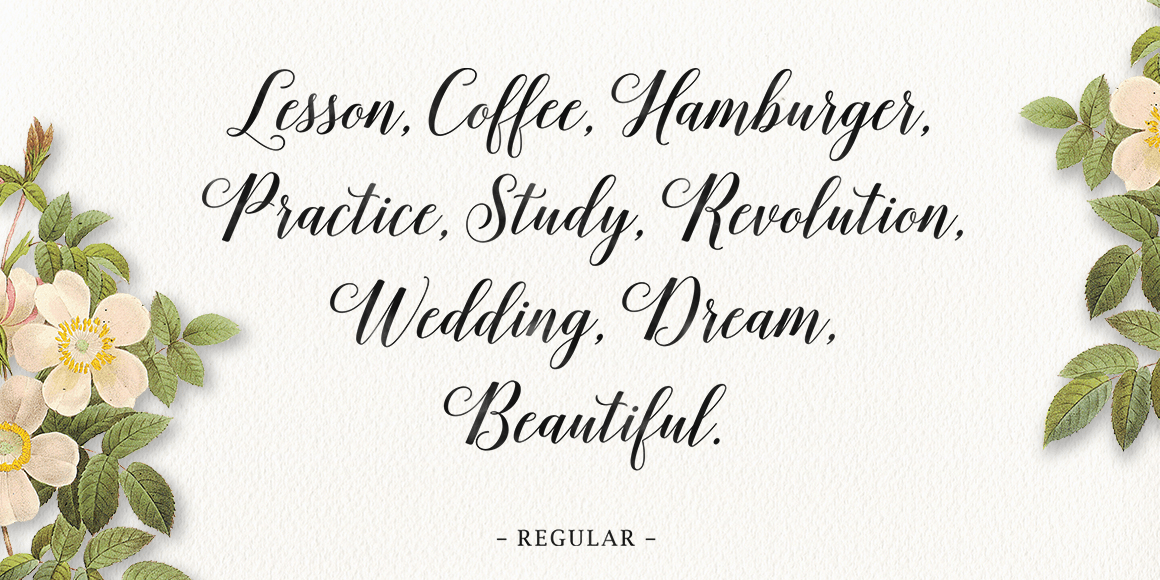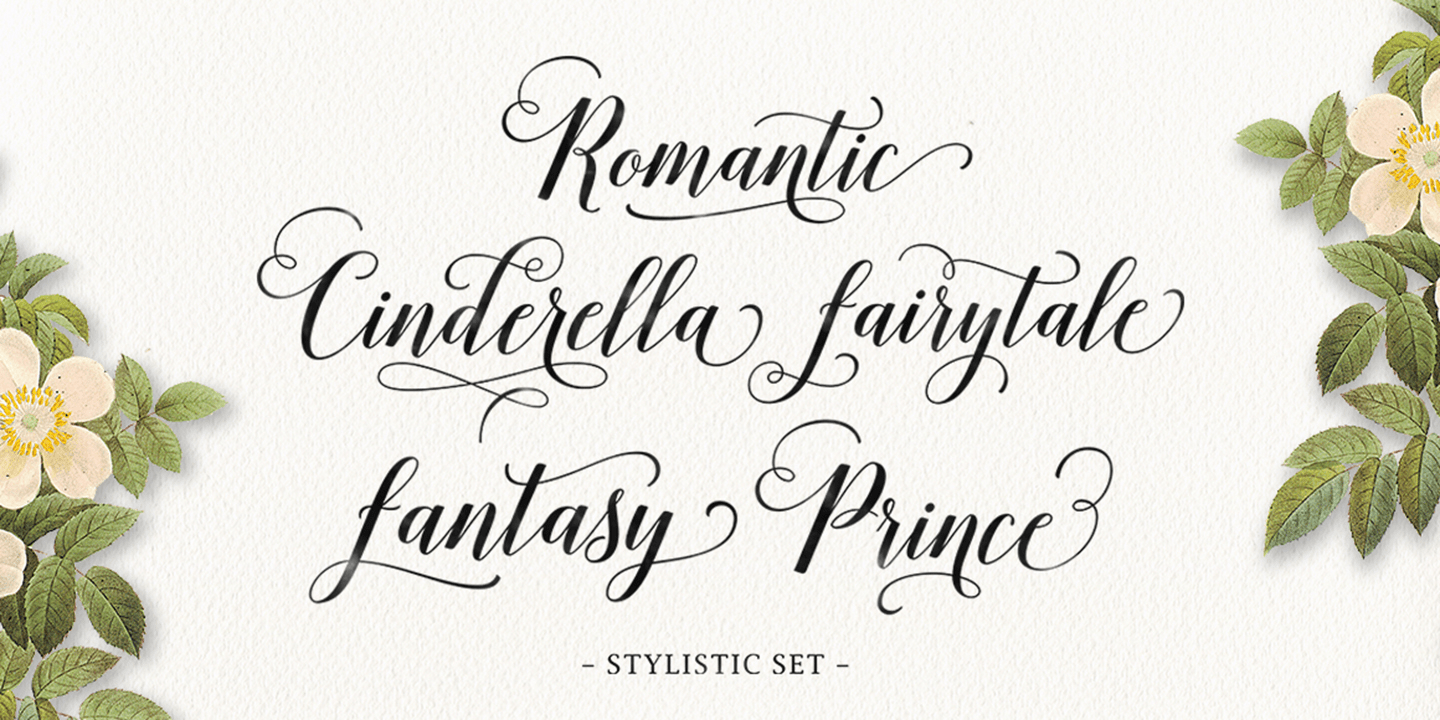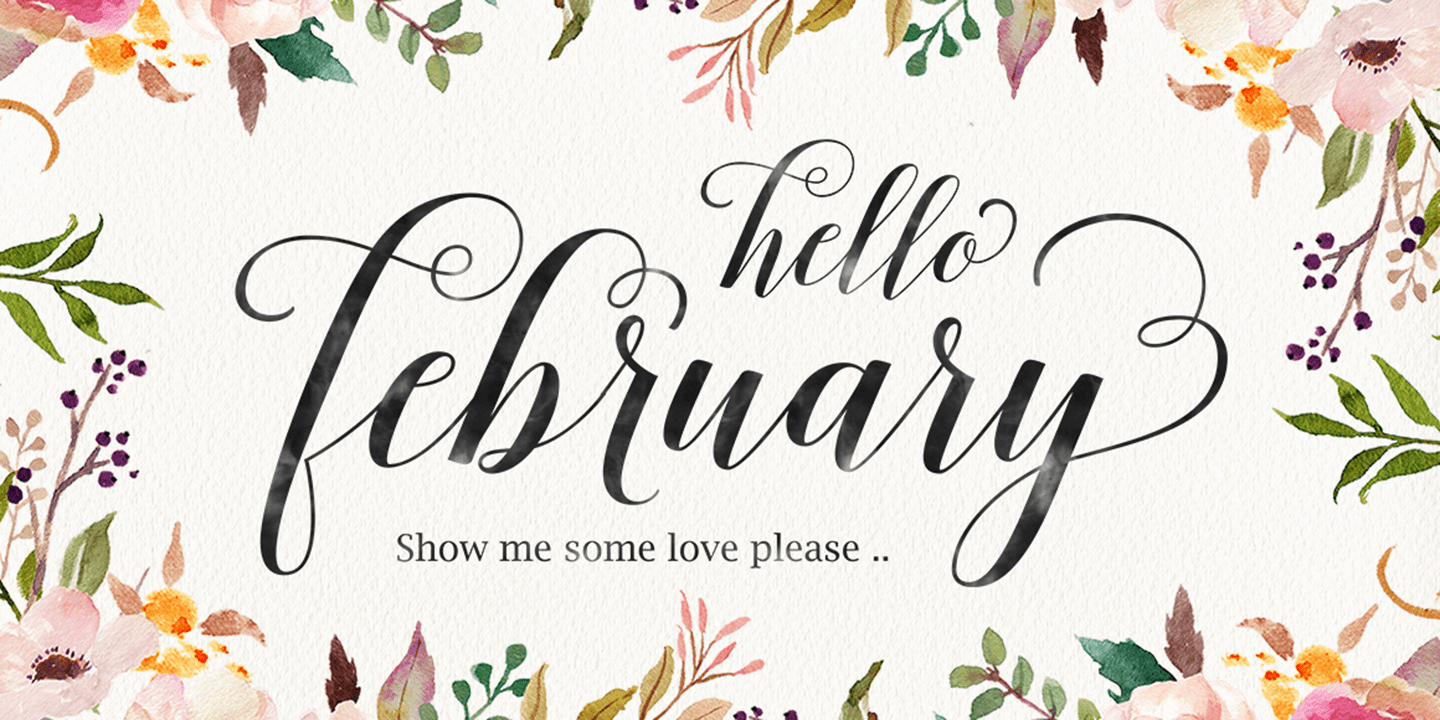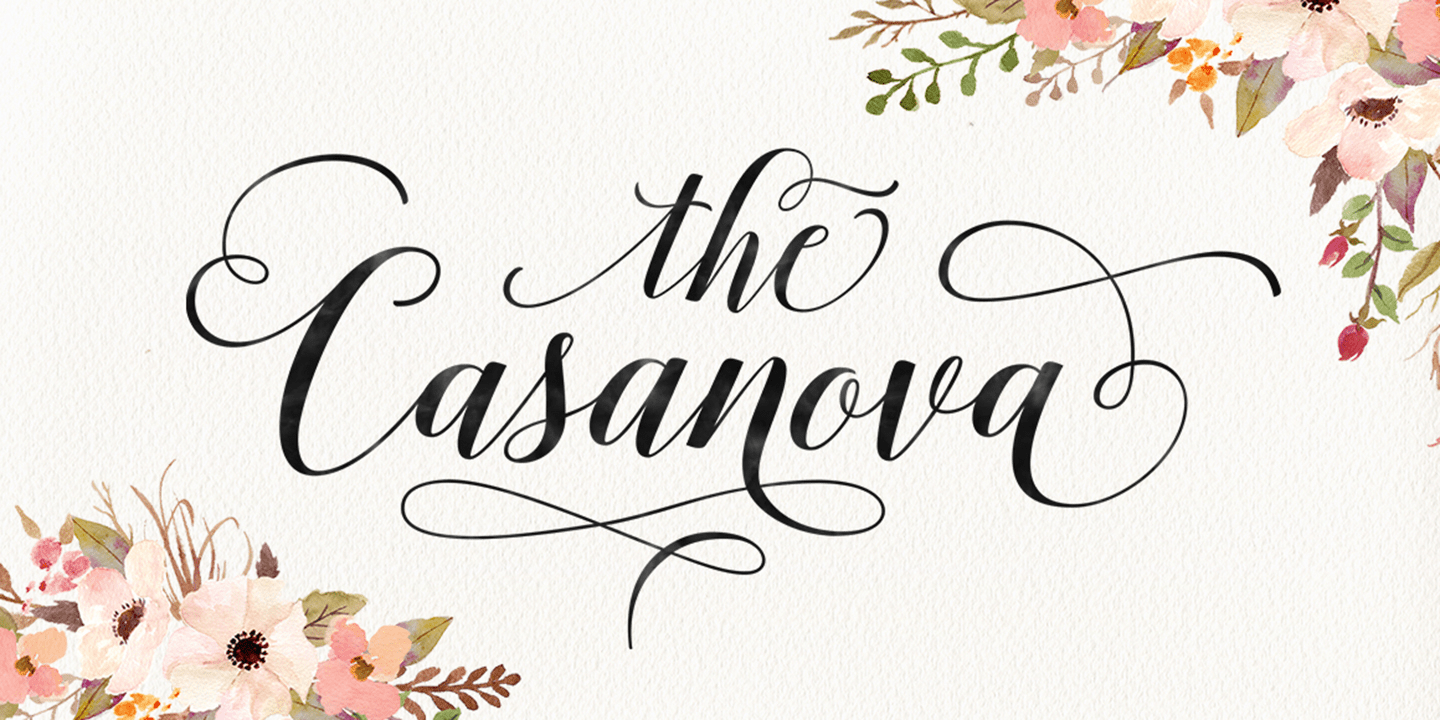
About Belastoria
Belastoria is a connecting script with a dancing baseline, which is designed to convey elegance and style. It is clean, feminine and friendly. This font works perfectly for logos, magazines, menus, books for children, invitations, wedding / greeting cards,…